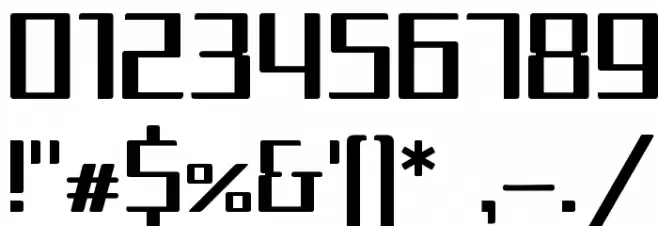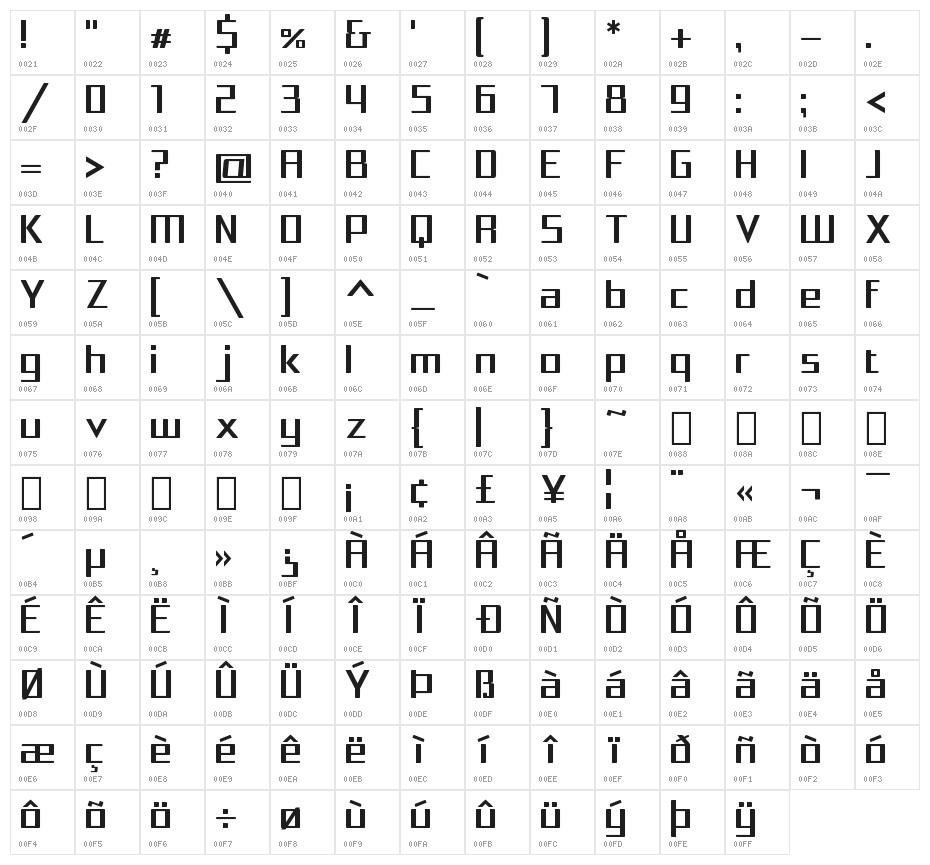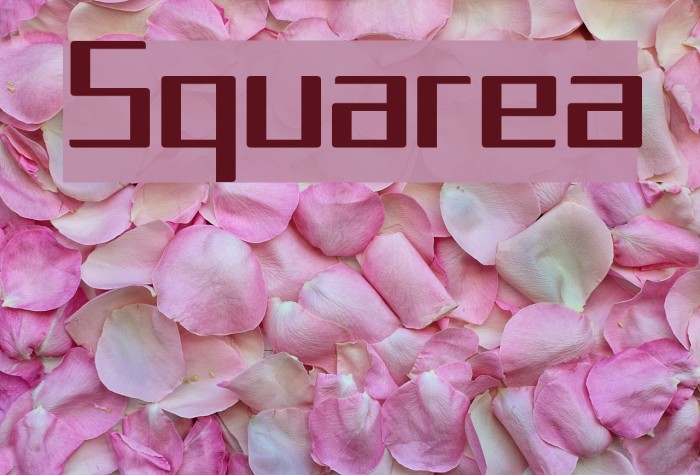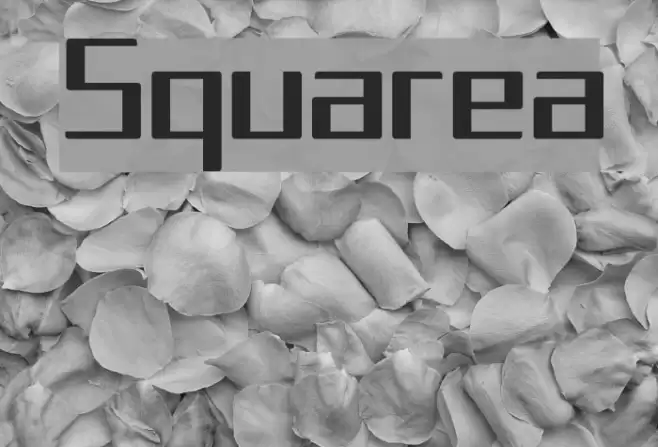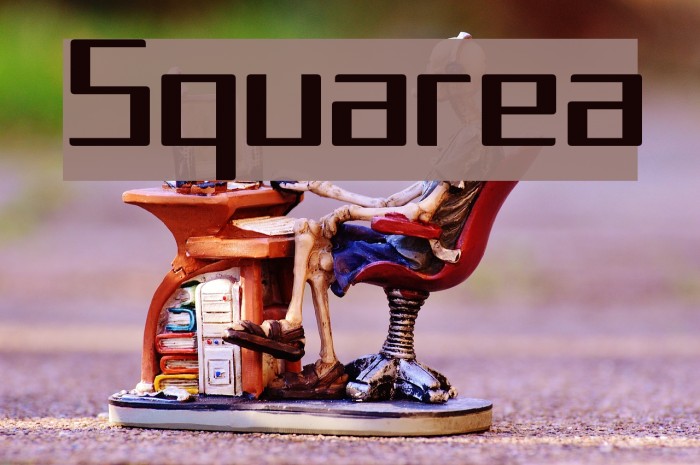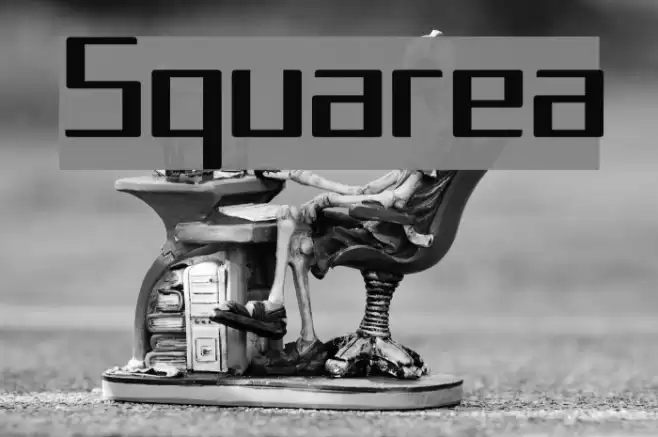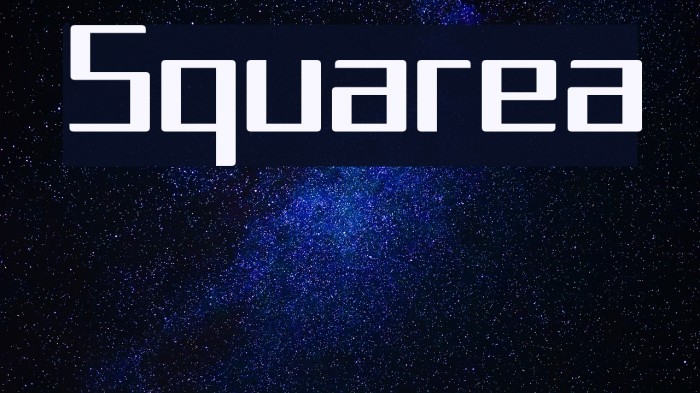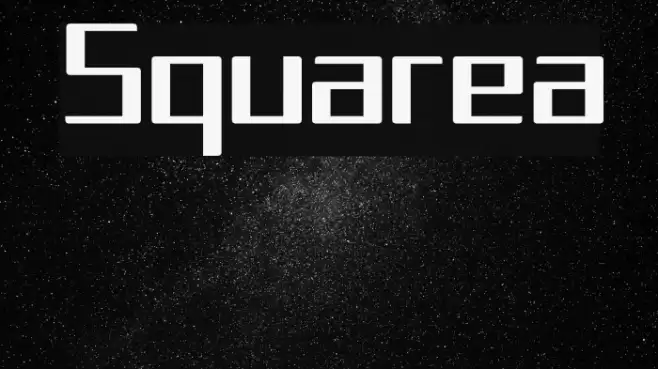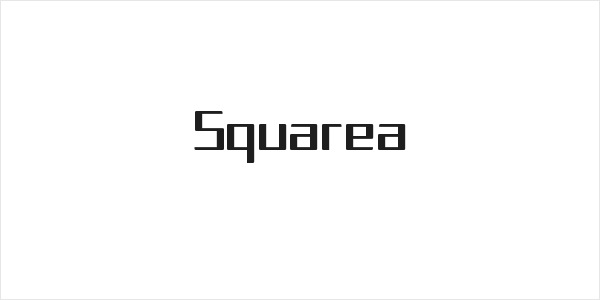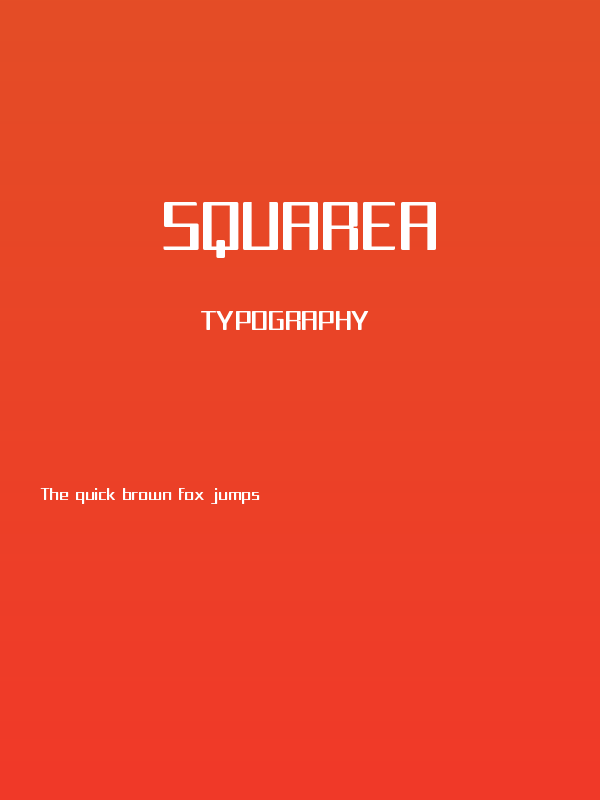
Squarea Font
Squarea Description
This font features a geometric and modern design with a strong emphasis on straight lines and right angles, creating a square-like appearance. The characters are uniform in width, contributing to a monospaced feel, although they are not strictly monospaced. The uppercase letters are bold and commanding, while the lowercase letters maintain a consistent height and width, ensuring readability. The numerals are distinct and clear, matching the overall style of the alphabet. Special characters are designed with the same geometric precision, making them easily recognizable. This font's design is both futuristic and minimalistic, suitable for projects that require a clean and modern aesthetic.
| Proposed Projects | Ideal for technology branding, modern posters, digital interfaces, and futuristic designs. |